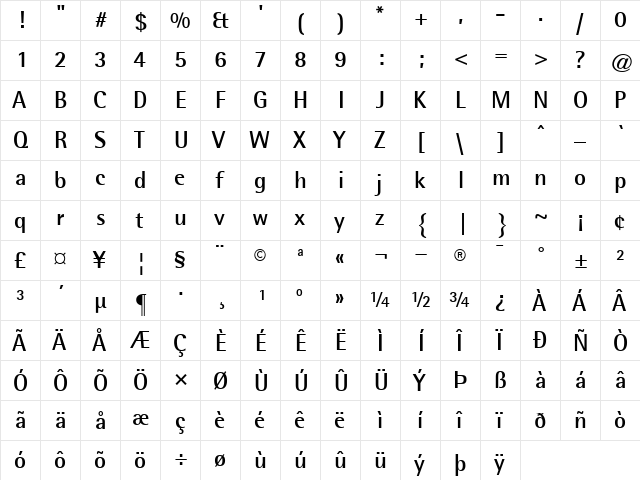
RotisSemiSans65 Bold Font Preview
RotisSemiSans65 Bold
Design Context for RotisSemiSans65 Typeface
RotisSemiSans65 takes a measured approach to typography — its balanced proportions and neutral character make it a reliable workhorse for both digital and print work. The heavy weight commands attention and anchors typographic hierarchies.